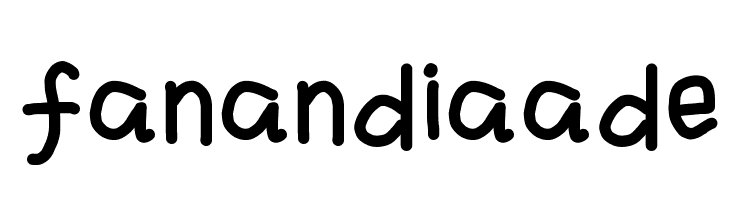
A bold, playful handwritten font with rounded characters.
A modern, italic sans-serif font with clean lines and a dynamic slant.
A dotted font with a digital, retro aesthetic.
A flowing, cursive font with elegant loops and a handwritten feel.
A bold, classic serif font with a modern touch, ideal for authoritative and traditional designs.
A bold, modern sans-serif font with clean lines and a slightly condensed style.
A playful, bold font with rounded edges and a friendly appearance.
Fantasy-themed clipart dingbat font with hand-drawn illustrations.